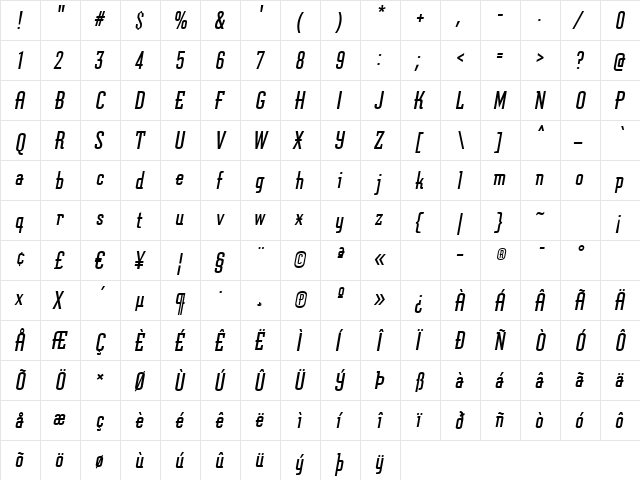
Graficz Italic
Design Context for Graficz Typeface
Graficz takes a measured approach to typography — its balanced proportions and neutral character make it a reliable workhorse for both digital and print work. Its italic angle brings a sense of urgency and motion to the letterforms.
Pro Tip: Try Graficz for annotation and caption copy alongside an upright companion — the contrast in angle creates a dynamic but ordered typographic system.